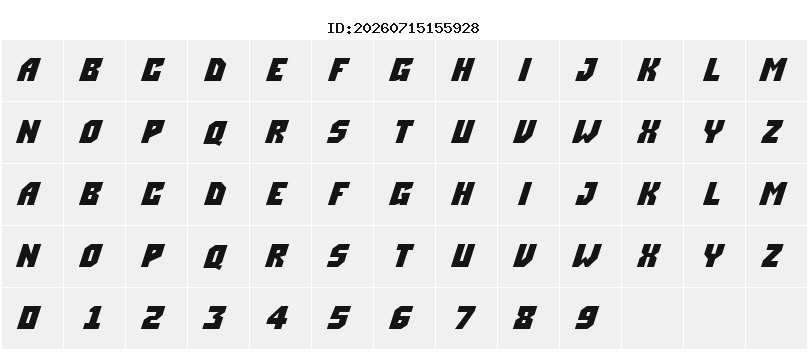
a_SimplerDnm Preview
• Font Name: a_SimplerDnm
• Full Font Name: a_SimplerDnm
About a_SimplerDnm.ttf
a_SimplerDnm.ttf is a modern, elegant sans-serif font designed for ultimate readability and visual harmony. Perfect for branding, headlines, web design, and print materials.